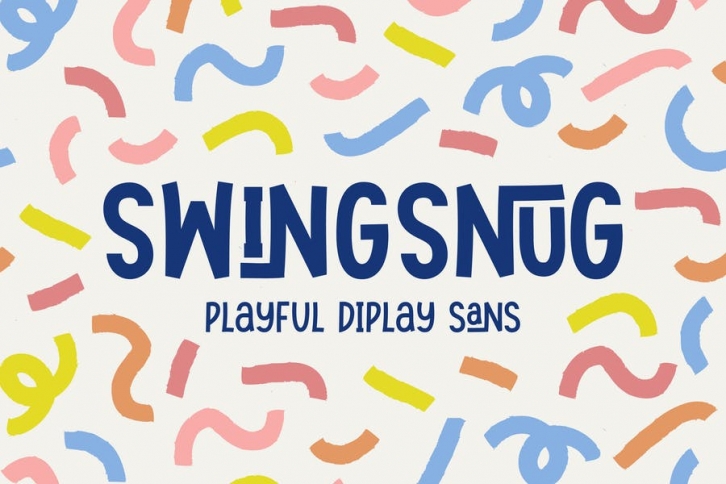
Swingsnug is a Playful Display Sans full of charm . It will take any DIY-project to the next level!
Swingsnug is perfect for Craft , product packaging, product designs, label, branding projects, logo, wedding designs, social media posts, advertisements, watermark, invitation, stationery and any projects
- Standard glyphs
- Multilingual Accent
Fonts include multilingual support